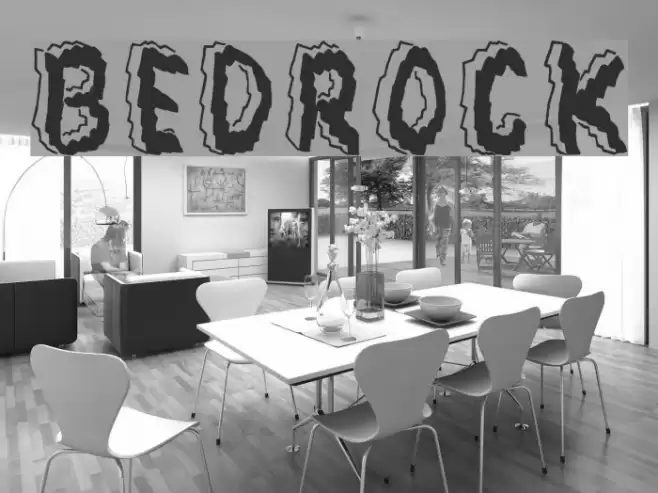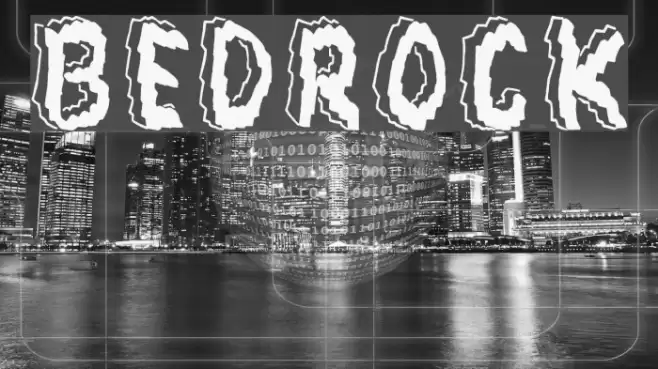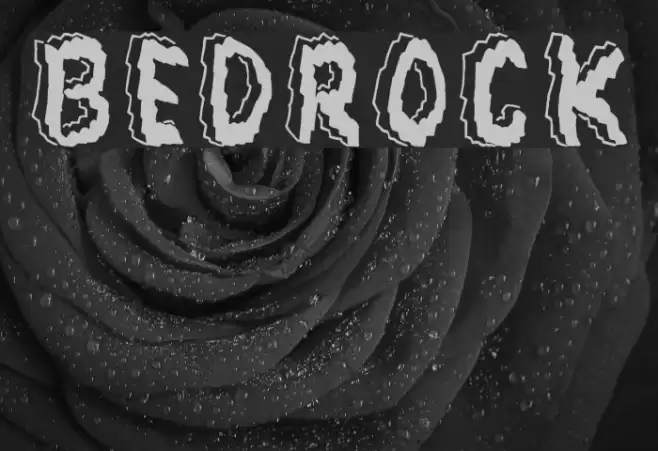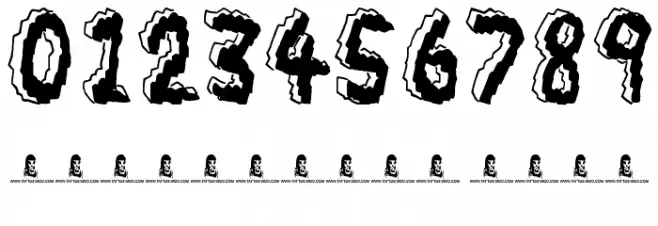
Bedrock Font
Bedrock Description
This font features a bold, rugged style with a three-dimensional, stone-like appearance. The characters are designed with a rough, chiseled texture that gives them a dynamic and impactful look. Each letter and number appears to be carved out of rock, with uneven edges and a shadow effect that enhances the 3D illusion. The font is highly decorative, making it ideal for projects that require a strong visual impact. It captures a prehistoric or primitive aesthetic, reminiscent of ancient carvings or stone inscriptions.